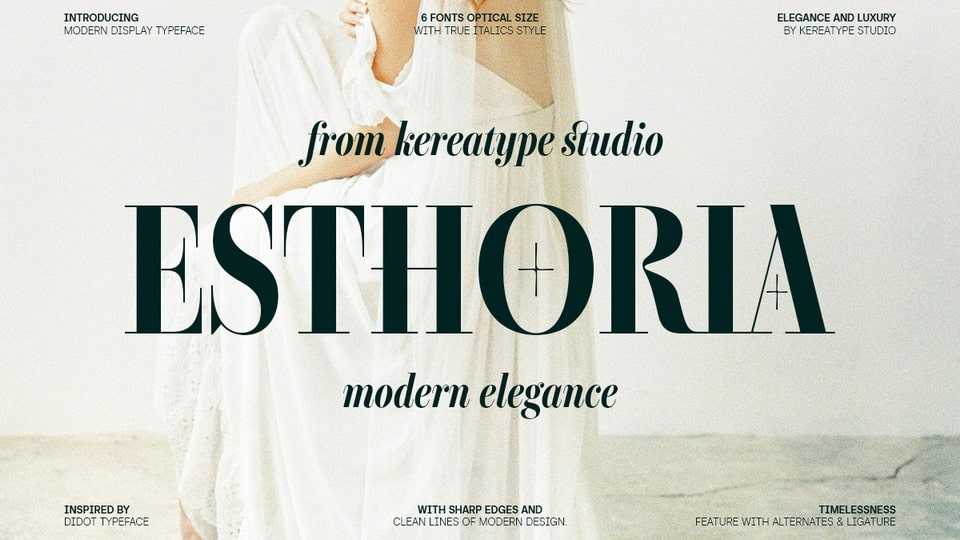
Download Esthoria font, a high-contrast serif typeface family that merges timeless elegance with modern minimalism, inspired by Didot and Bodoni.
Designer: Kereatype Studio